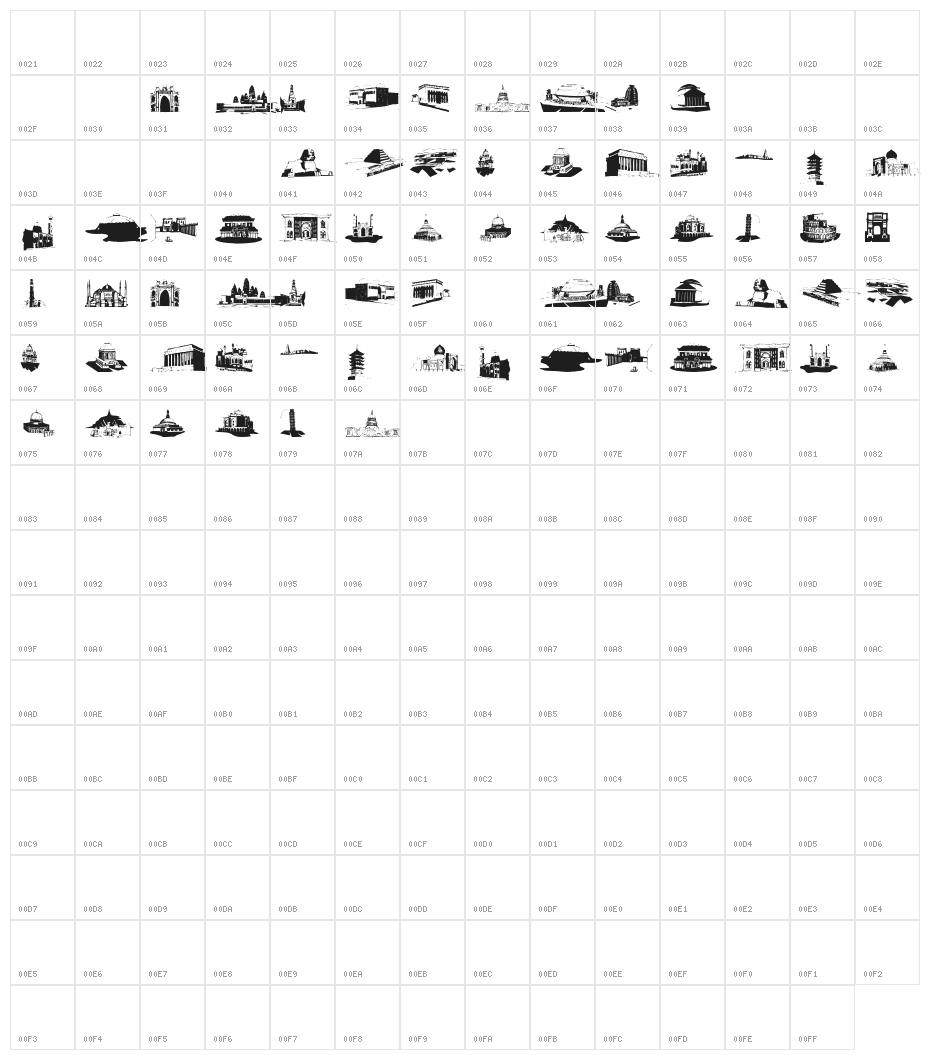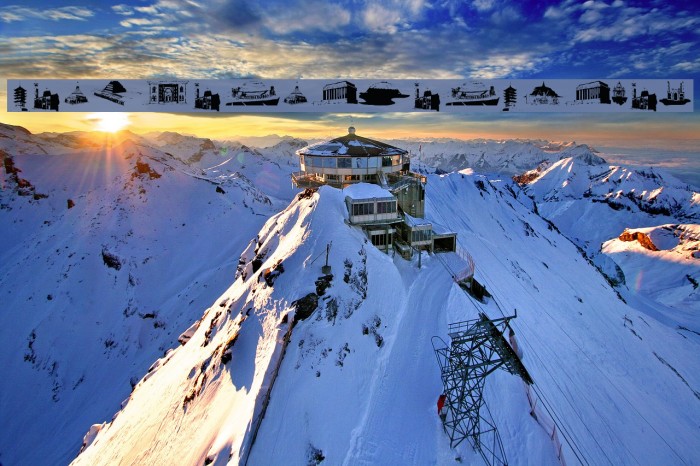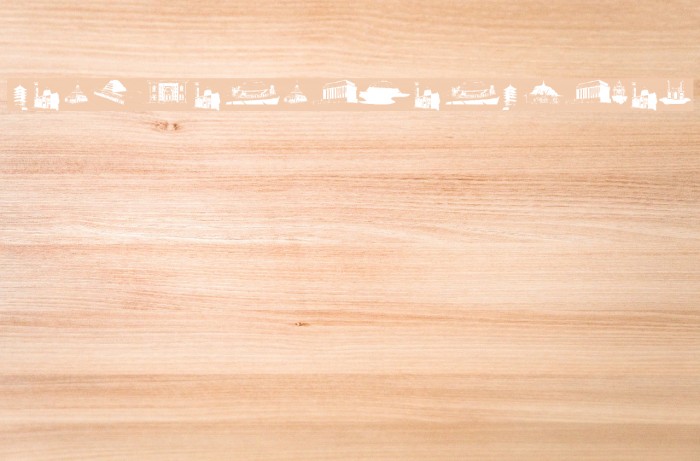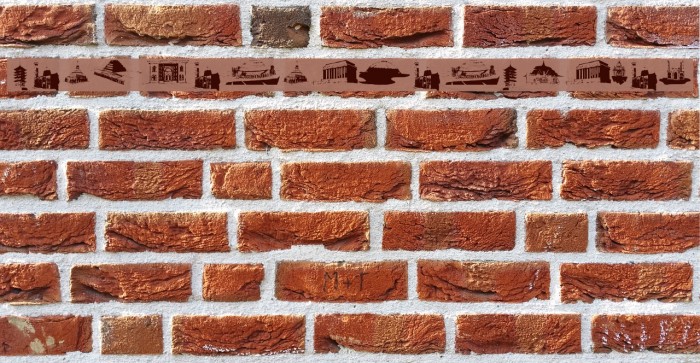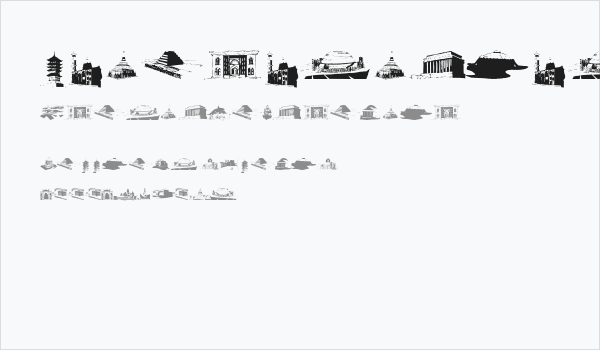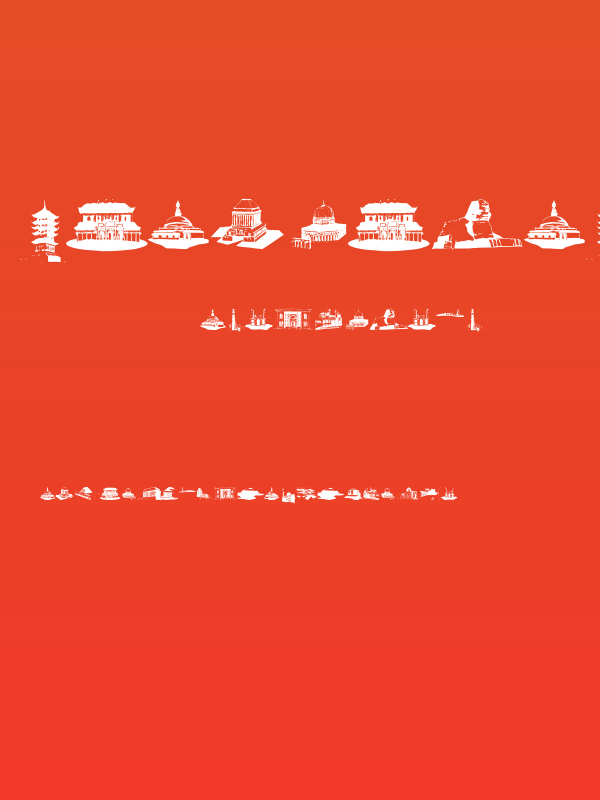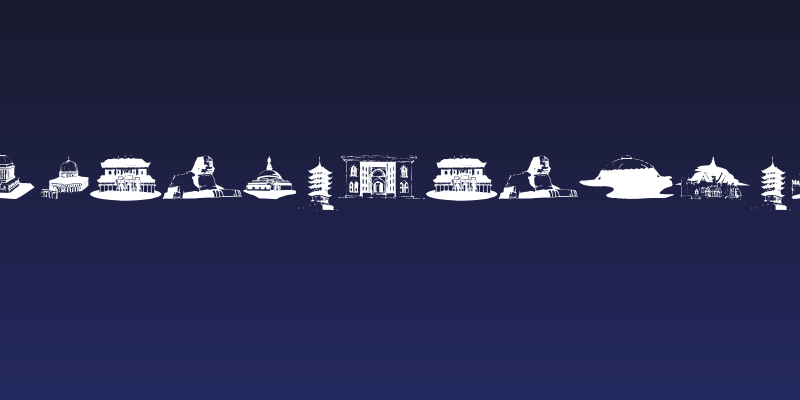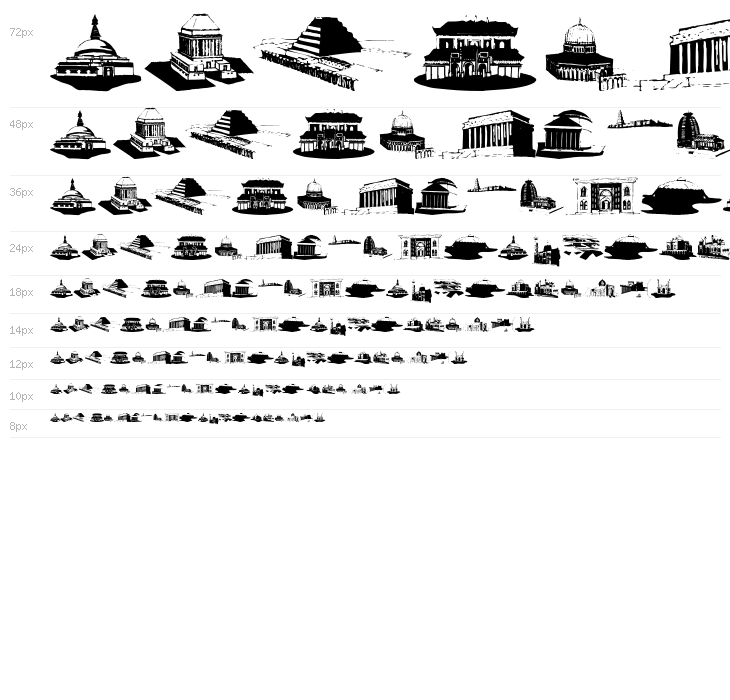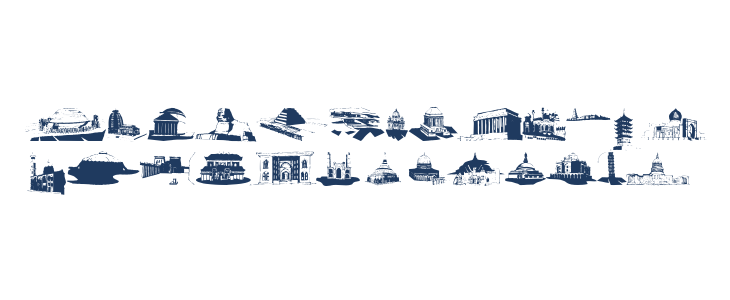
InternationalSigns Font
InternationalSigns Description
A decorative display font featuring detailed black-and-white silhouettes of famous international landmarks and architectural icons in place of traditional alphanumeric characters and symbols.
| Overall Style | Decorative, Thematic, Pictorial |
| Use Case | Logos, Posters, Themed headlines, Visual storytelling |
| Proposed Projects | Travel posters, educational materials, tourism branding, event invitations, themed graphics. |